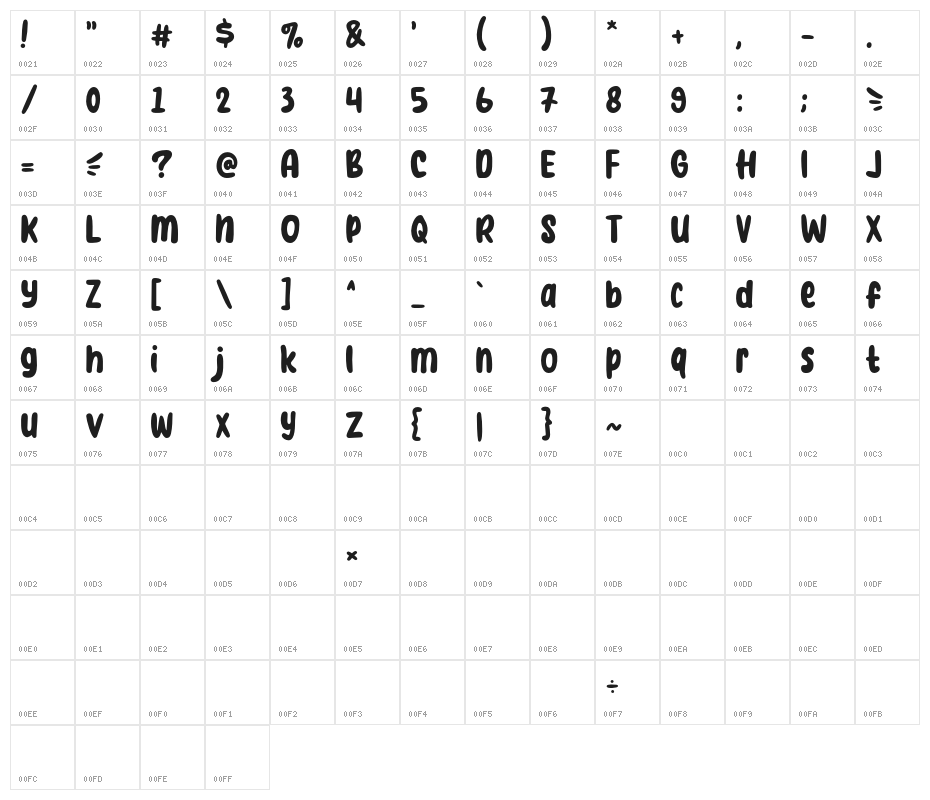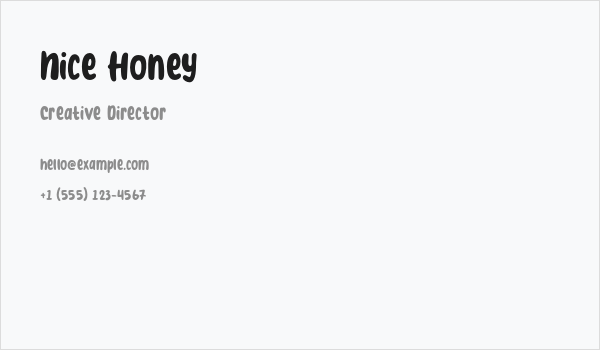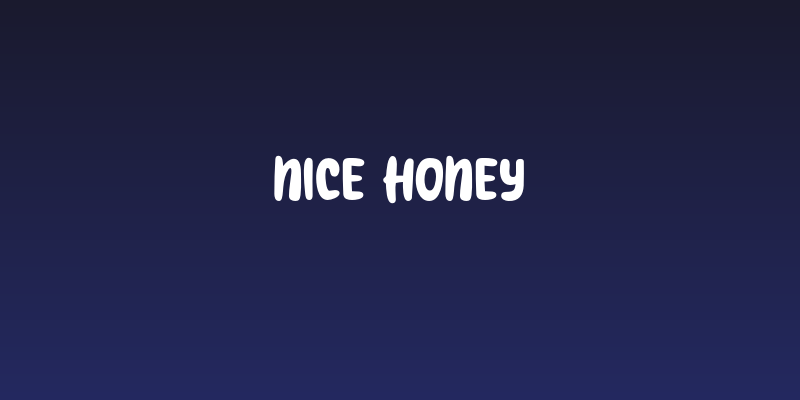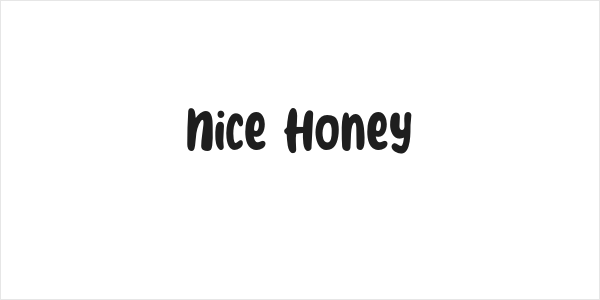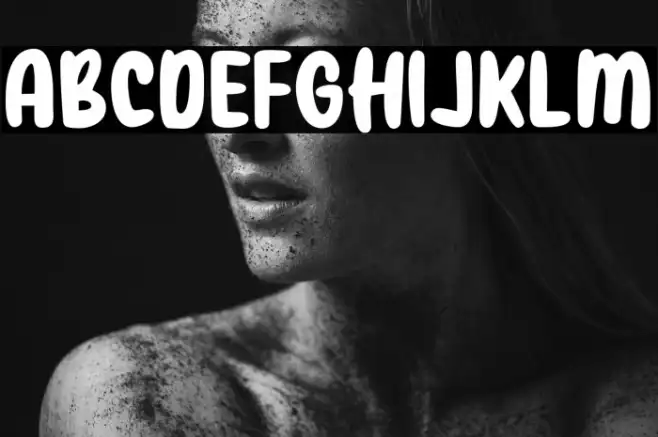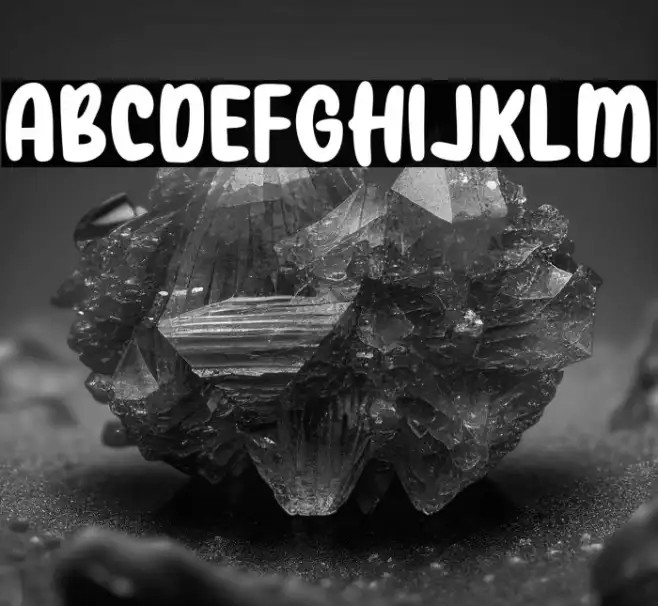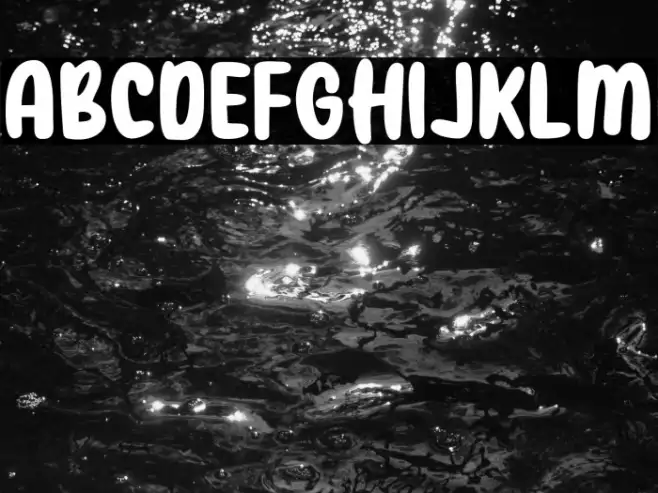
Nice Honey Font
Nice Honey Description
This playful and bold font features rounded, thick strokes that give it a friendly and approachable appearance. The characters are slightly condensed, with a consistent weight throughout, creating a cohesive look. The uppercase and lowercase letters maintain a uniform style, with a slight bounce that adds to its whimsical charm. The numerals and special characters are designed to match the overall aesthetic, making this font versatile for various uses. Its smooth curves and lack of sharp edges contribute to its inviting and informal feel.
| Proposed Projects | Ideal for children's books, playful branding, greeting cards, and casual posters. |